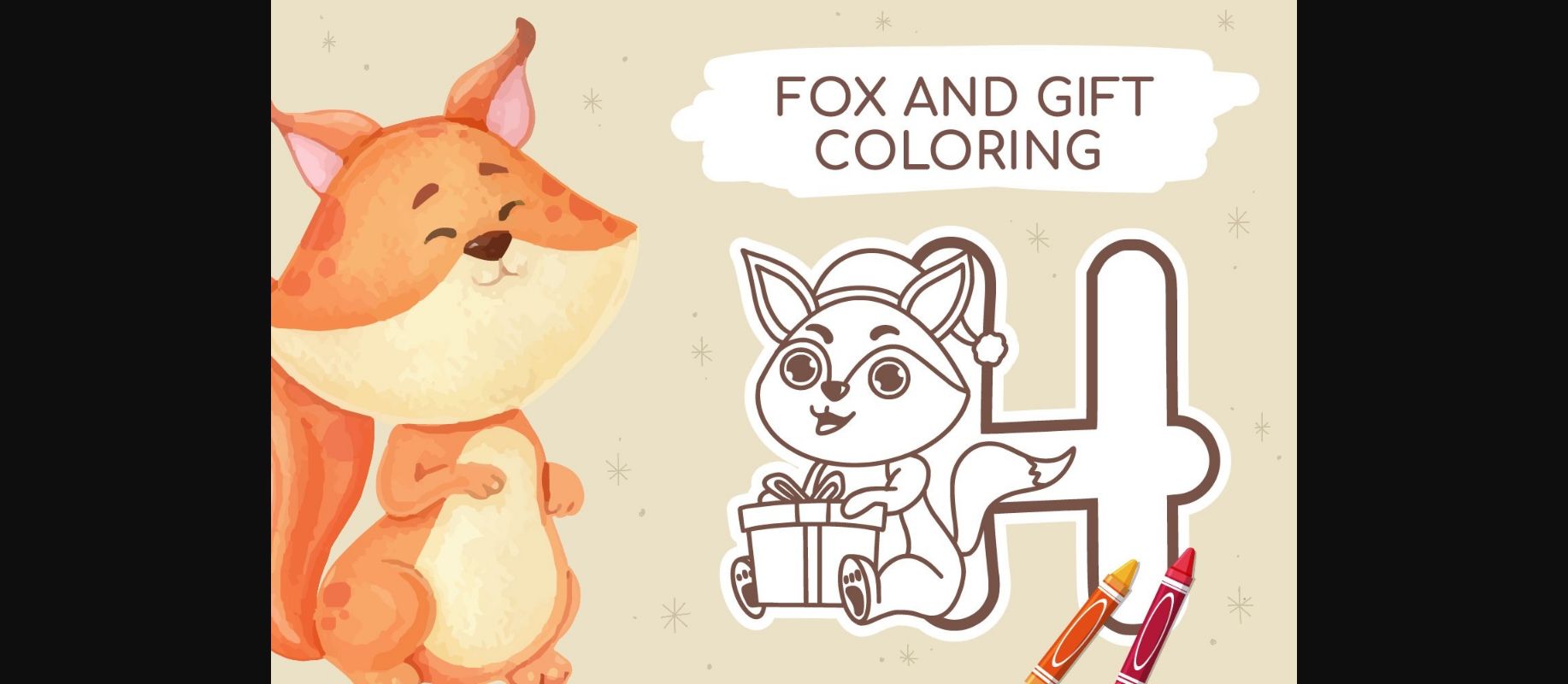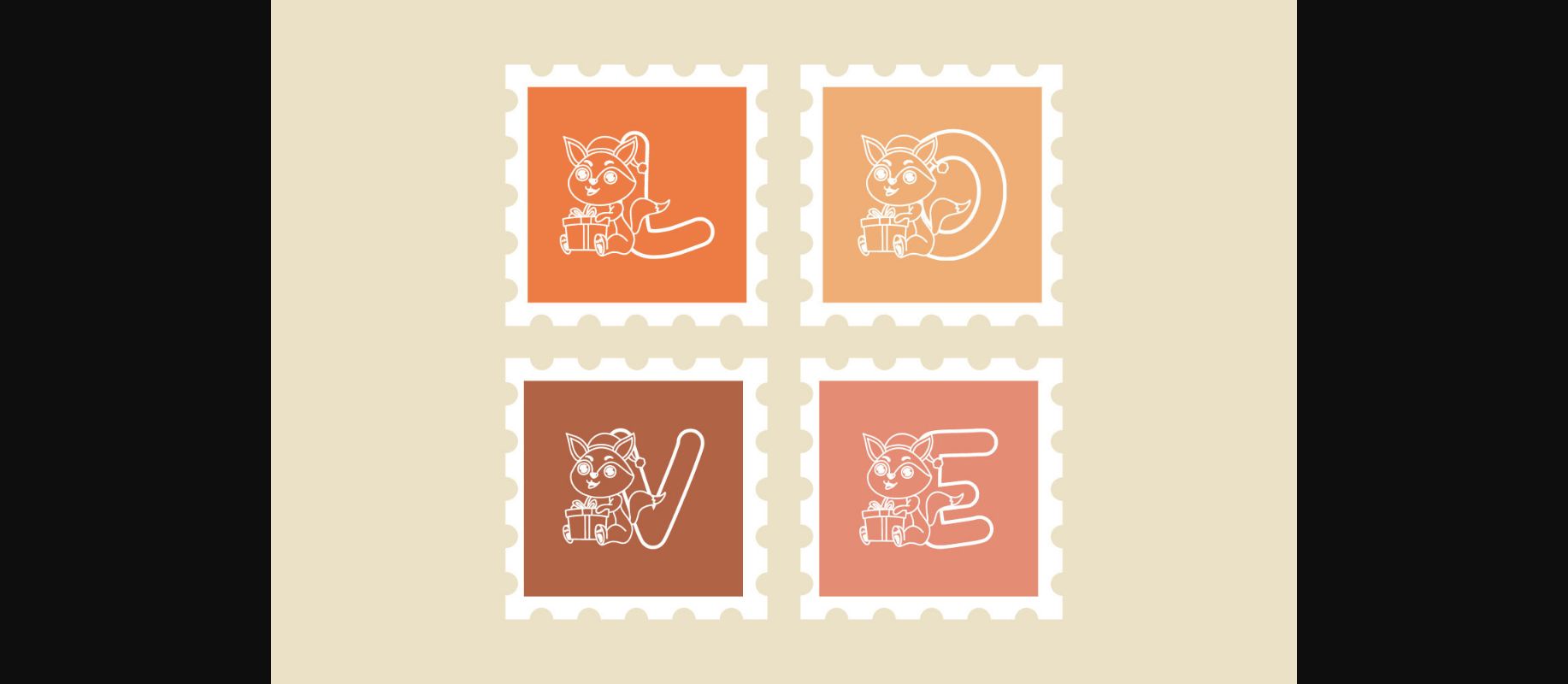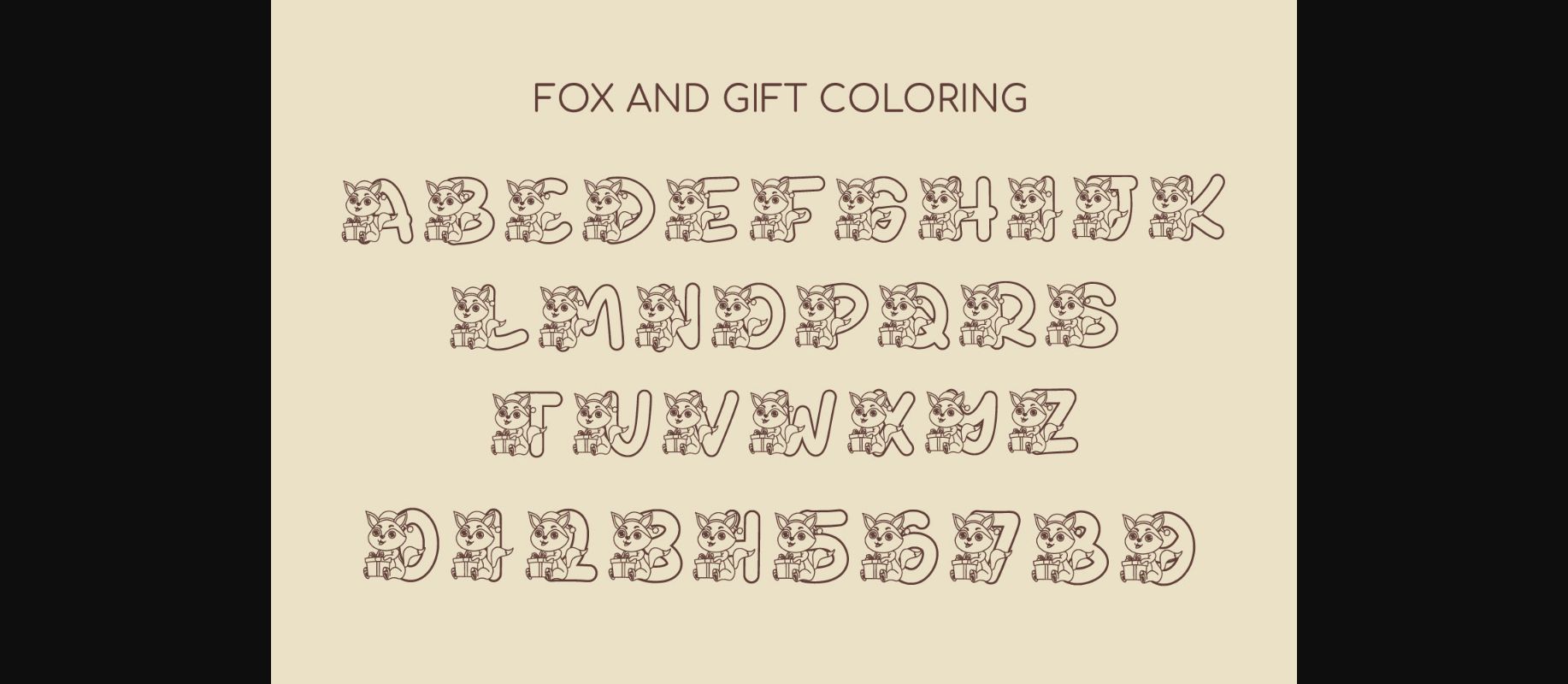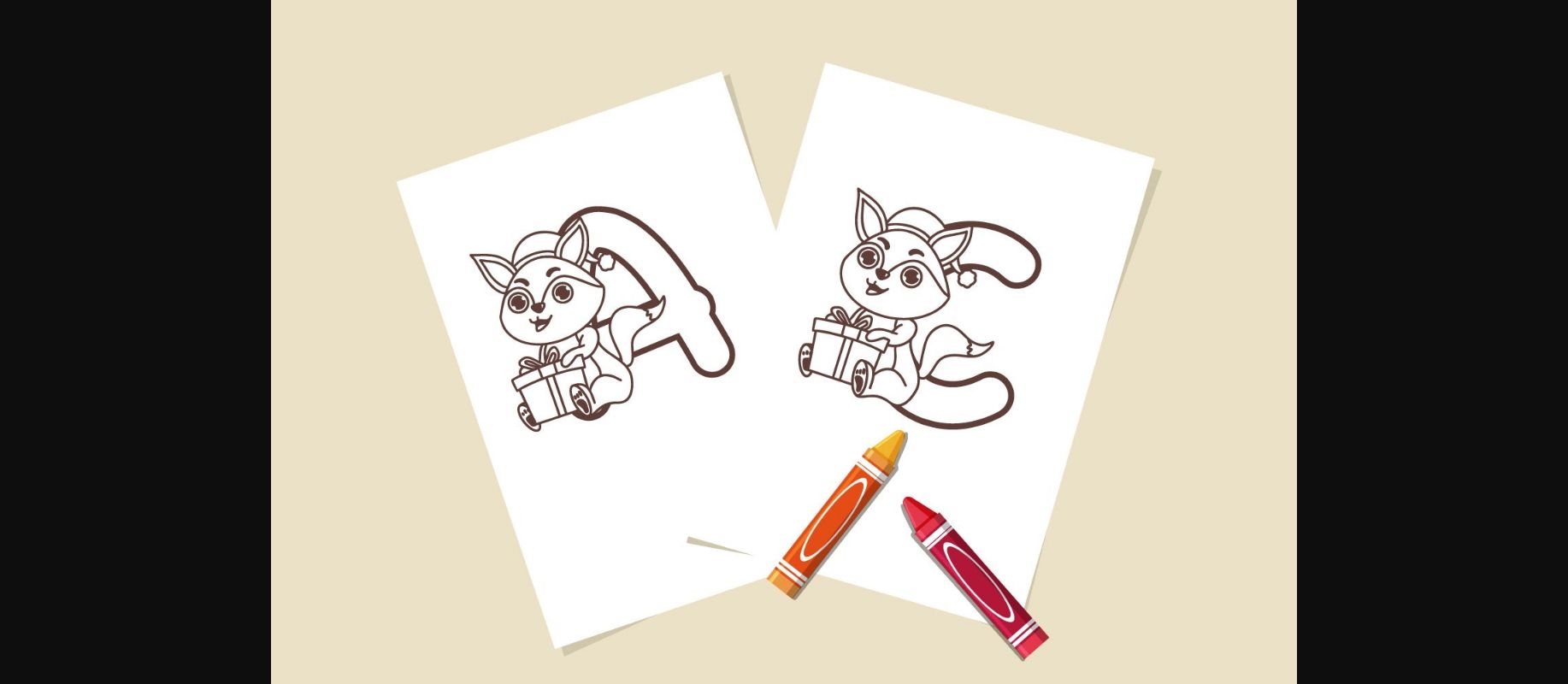
HomeDecorative FontsFox and Gift Coloring Font Decorative Fonts Fox and Gift Coloring Font FacebookXPinterestWhatsApp 1 of 6 ... Fox and Gift Coloring Font Poster 2... Fox and Gift Coloring Font Poster 3... Fox and Gift Coloring Font Poster 4... Fox and Gift Coloring Font Poster 5... Fox and Gift Coloring Font Poster 6... About Fox and Gift Coloring Font Fox and Gift Coloring is a cute and fun decorative font. This font represents fun. Add this cute font to your designs, and watch how it comes to life! DOWNLOAD NOW People also explored Meteor Font Headwind Font Kitchenbats Angela Font Baking Lion Font Charlie Lovelya Font The Lazy Font Charlotte Font Bodoni at Home 265 0 TagsFox and Gift Coloring Font Previous articleSweater FontNext articleValentine Font LEAVE A REPLY Cancel reply Comment: Please enter your comment! Name:* Please enter your name here Email:* You have entered an incorrect email address! Please enter your email address here Website: Save my name, email, and website in this browser for the next time I comment. Personal Use Free Kumadinya Personal Use Free Read more about this font Larosh Sithal Duo Personal Use Free Read more about this font Super Bubbly Font Personal Use Free Read more about this font Anggraini Personal Use Free Read more about this font BLOG Top 10 Handwritten Fonts That Elevate Your Designs Top 10 Handwritten Fonts That Will Elevate Your Designs Handwritten fonts bring a warm, personal touch to every creative project. Whether you're designing logos, invitations,... How to Cut Any Font on Cricut: Convert a Font to SVG (Free) Top 7 Google Fonts Alternatives for Faster and Privacy-Friendly Web Design (2025) Free vs Paid Fonts: Why Investing in Premium Fonts Is Worth It